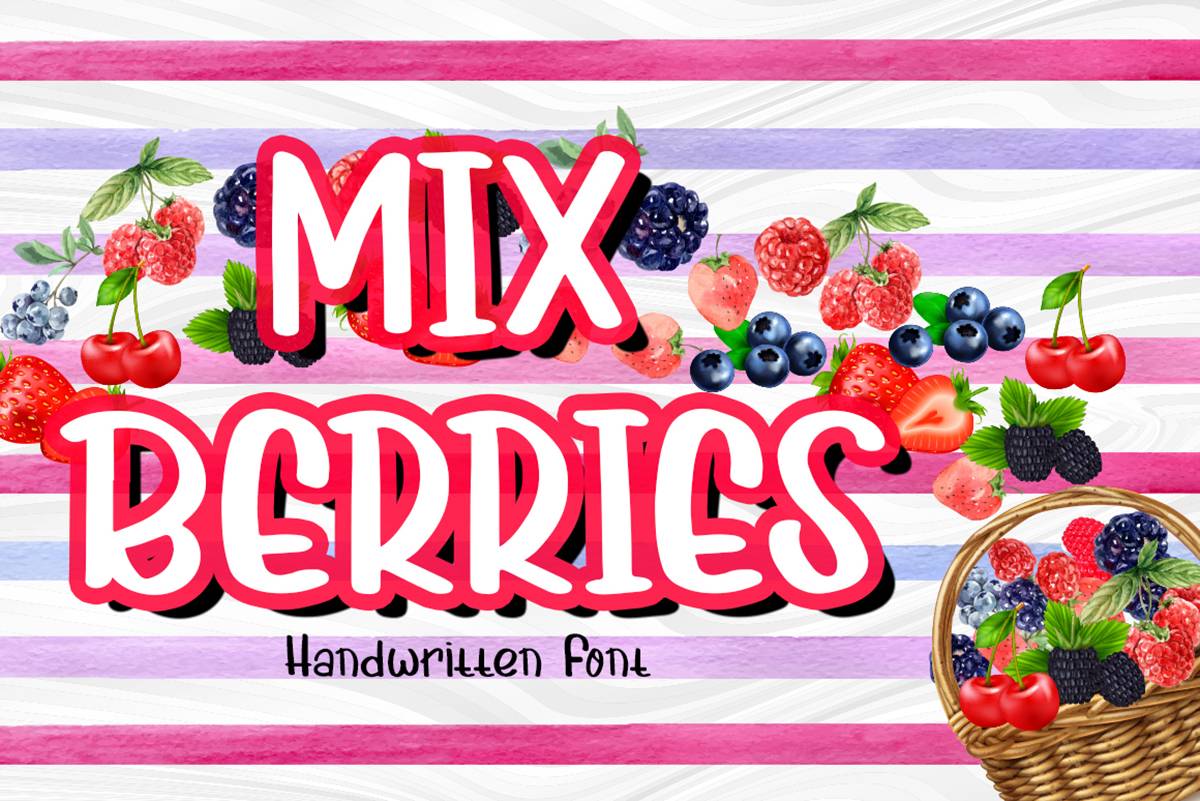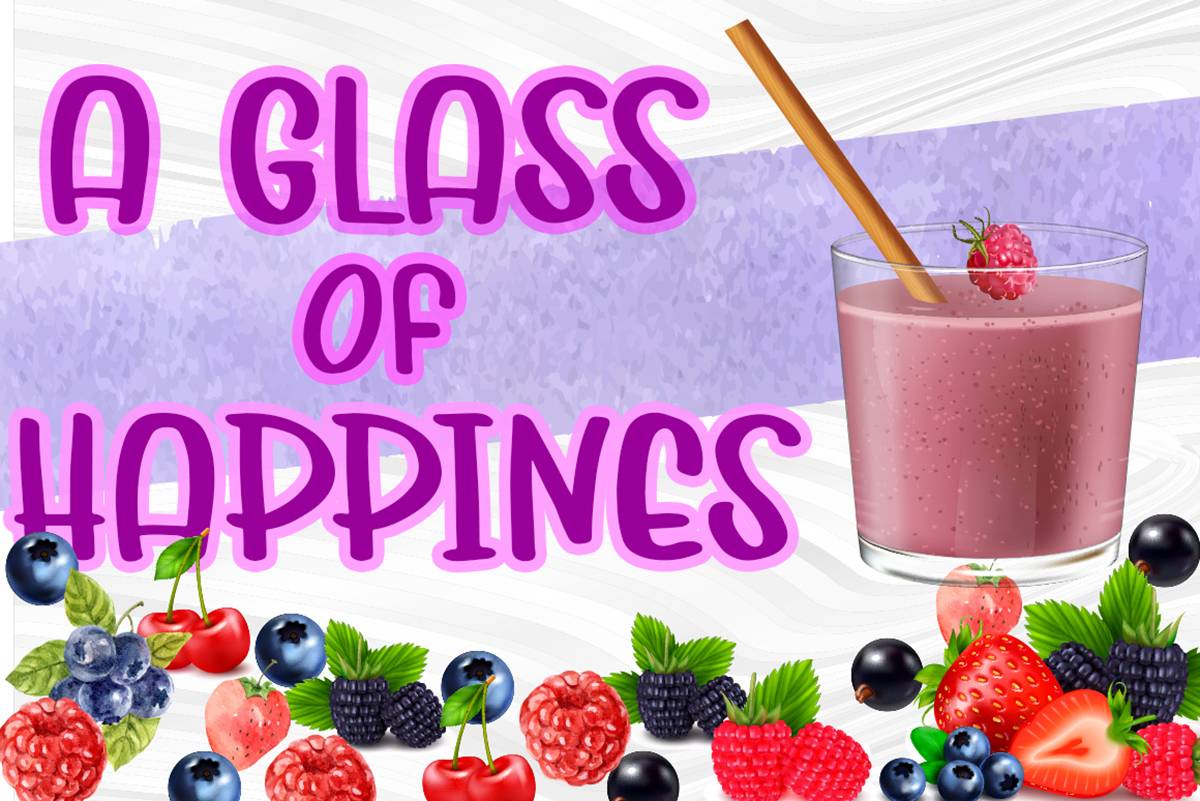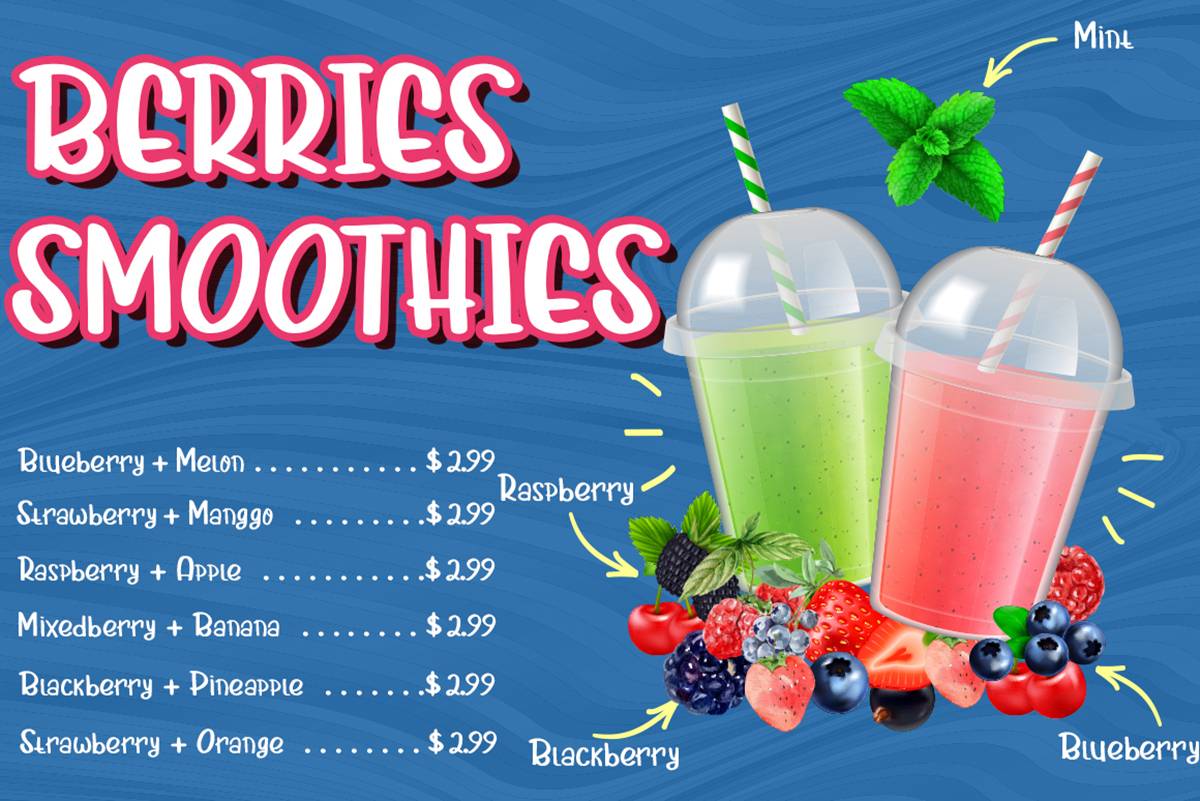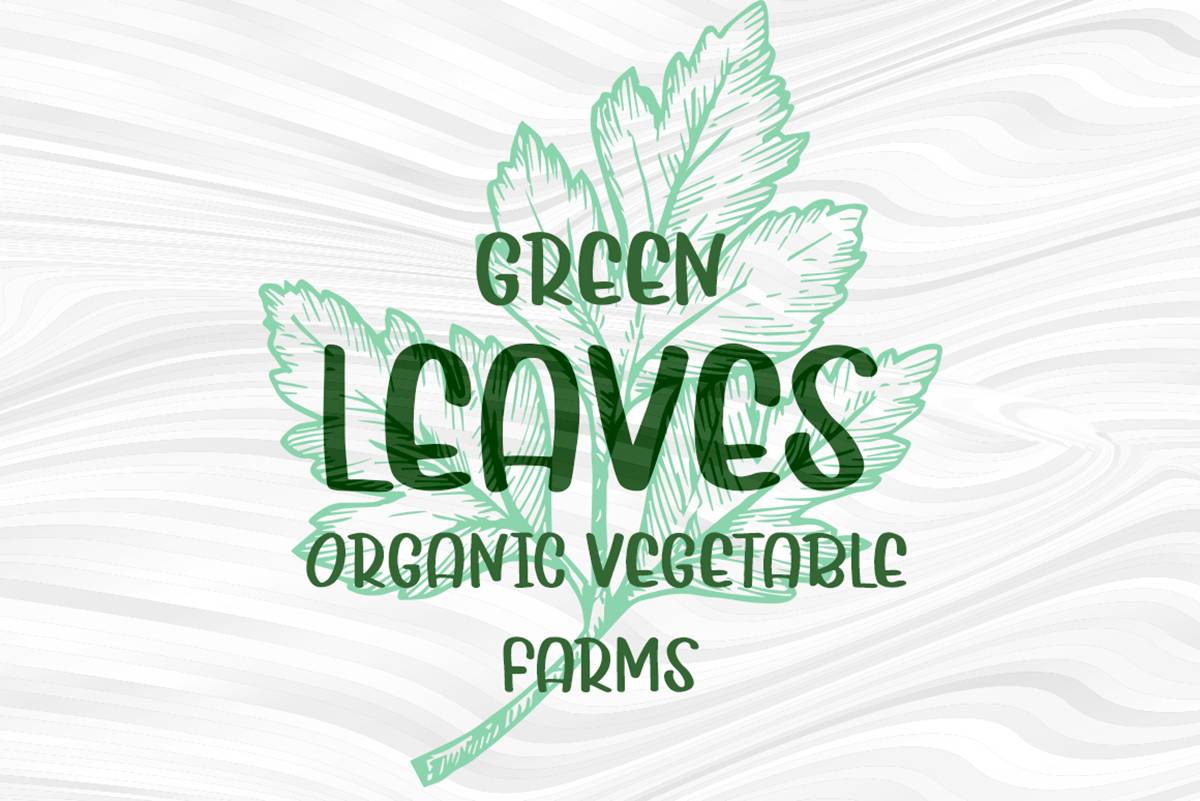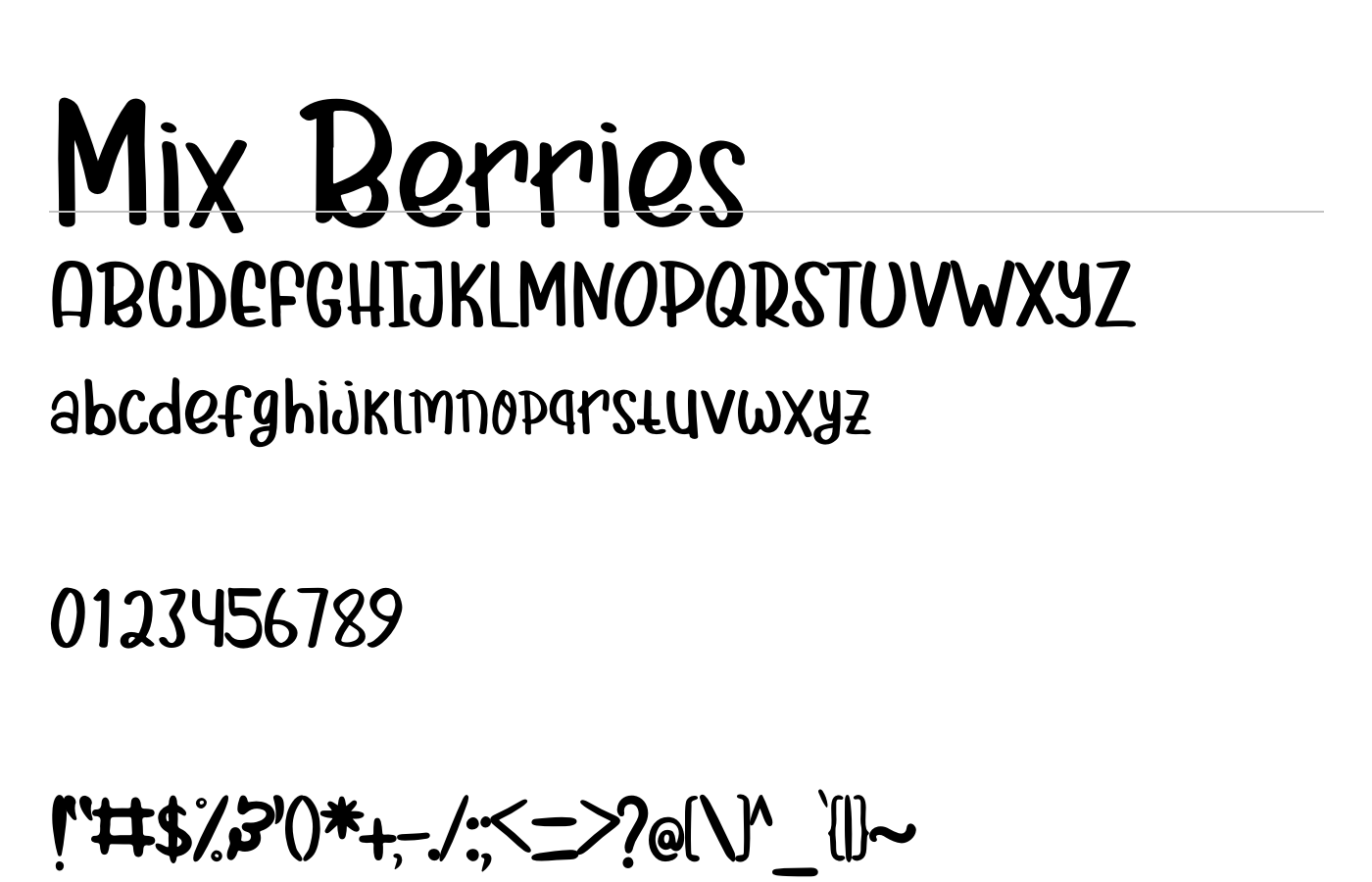
Mix Berries is a playful, hand-drawn sans serif font with a casual and friendly vibe. Its tall, rounded letterforms feature moderate stroke contrast and quirky shapes, making it ideal for lively, informal designs such as children’s books, invitations, or fun branding projects. This font works well for headlines and creative display uses where a warm, approachable personality is desired.
Mix Berries Font
About Mix Berries Font
| Font family | Mix Berries Font |
| Designer | Fajar Wicaksono |